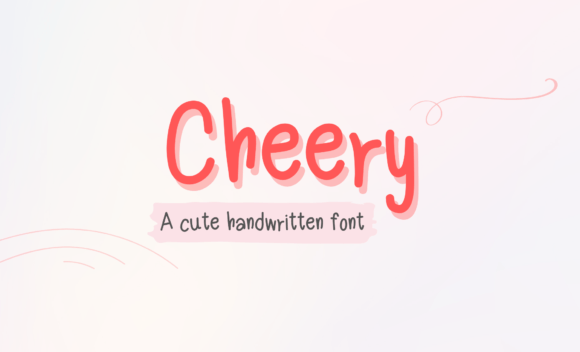
Unleash the Charm of Cheery Font: Your Gateway to Unforgettable Creations
In the realm of digital artistry, where words dance and emotions flow, the Cheery Font emerges as a radiant beacon of creativity. This enchanting script, crafted by the visionary artists at LalavaStudio, is a symphony of playful strokes and elegant curves, captivating hearts with its irresistible charm.
Step into a world where imagination knows no bounds, where the Cheery Font transforms your digital creations into captivating masterpieces. Whether you're a seasoned designer or just starting your artistic journey, this font will ignite your passion and elevate your designs to new heights.
With its meticulously crafted characters, Cheery Font breathes life into your words, adding a touch of whimsy and delight to every project. Its playful nature dances across the screen, drawing the eyes of your audience and leaving a lasting impression.
Dive into a world of endless possibilities with Cheery Font. Its versatility knows no limits, making it the perfect companion for a myriad of creative endeavors. From cheerful digital prints that brighten your day to captivating phrases that dance across social media, this font adapts seamlessly to your artistic vision.
Planners and journals become vibrant canvases when adorned with the Cheery Font. Its neat and clean lines bring order and clarity to your thoughts, while its playful spirit adds a touch of joy to your everyday musings.
For those special presentations that demand attention, the Cheery Font stands ready to command the spotlight. Its bold and captivating presence ensures that your message will be heard loud and clear, leaving a lasting impact on your audience.
Embrace the Cheery Font, a font that ignites your creativity, captivates your audience, and elevates your designs to new heights. Let your imagination soar and embark on a journey of self-expression like never before. The possibilities are endless, and the magic awaits your touch.